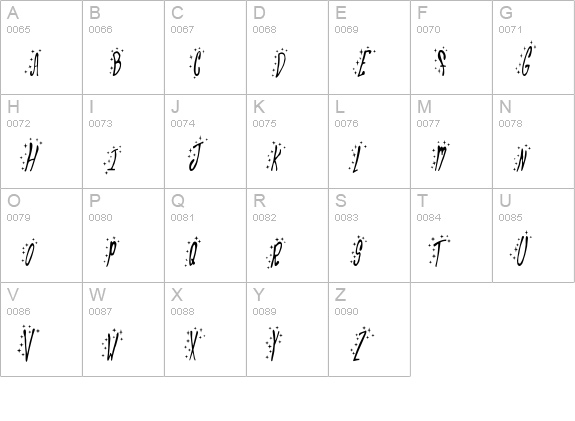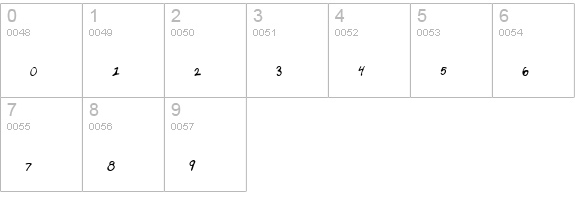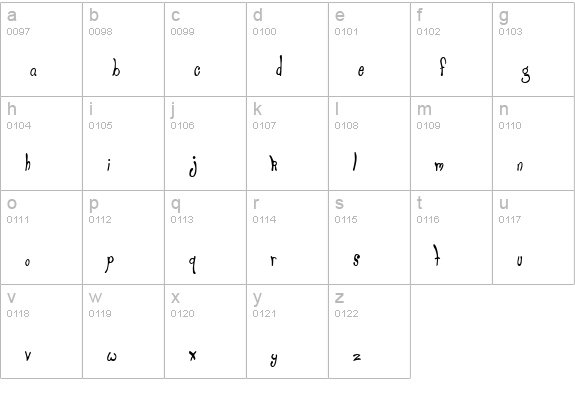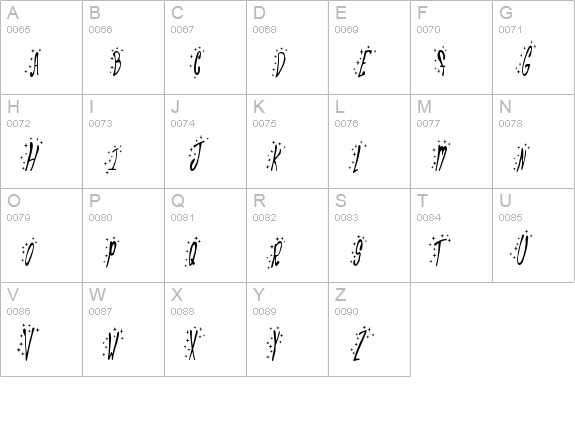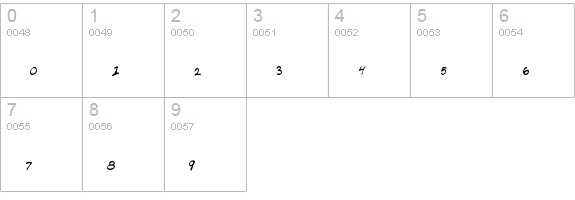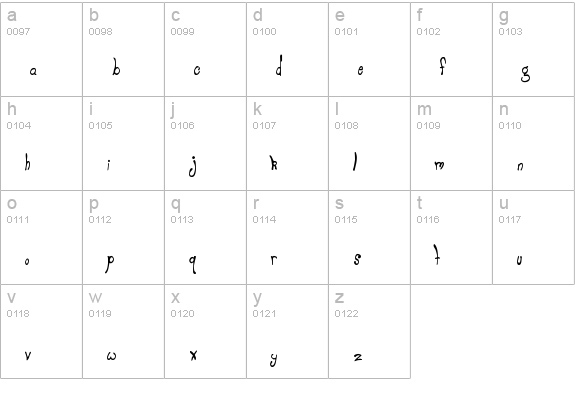
Club Fluffy font is a whimsical and playful typeface that exudes charm and creativity. Its rounded edges and quirky design make it perfect for adding a touch of fun to your projects. Whether you're designing invitations, posters, or branding materials, Club Fluffy font is sure to stand out and make a statement. The best part? Club Fluffy font is available for free download at FontsMarket.com. You can easily access this unique and eye-catching font to elevate your designs without any cost. Don't miss out on the opportunity to add a touch of whimsy to your projects with Club Fluffy font - get it now and let your creativity soar!